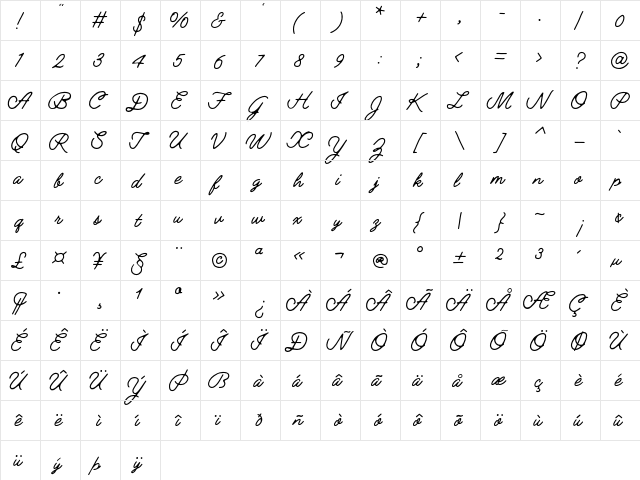
Jimmy Script Regular
| Designer | Tom Chalky |
Design Context for Jimmy Script Typeface
Jimmy Script flows with the natural rhythm of handwritten lettering, making it ideal for designs that call for warmth and personal expression.
Font Pairing: Combine Jimmy Script with a simple geometric sans for maximum contrast — the tension between flowing curves and clean structure is a classic typographic pairing.
Pro Tip: Use Jimmy Script for short runs of text — names, titles, or taglines. Extended body copy in script faces tires the eye quickly.